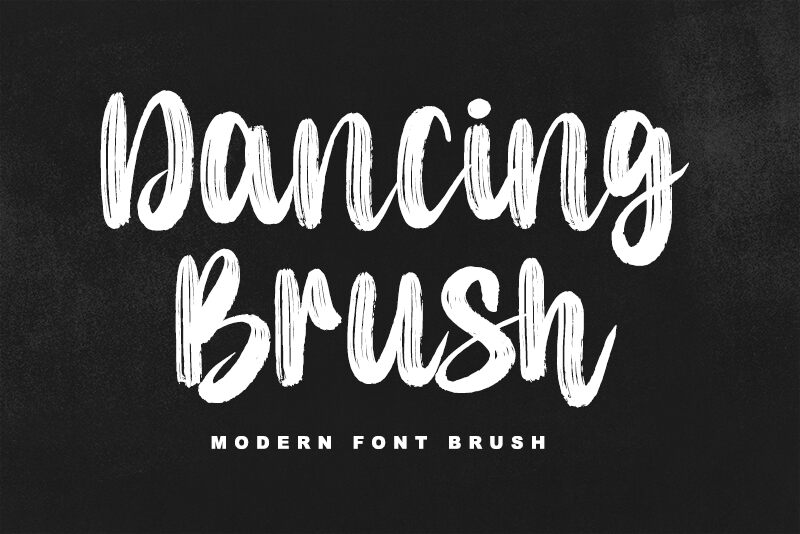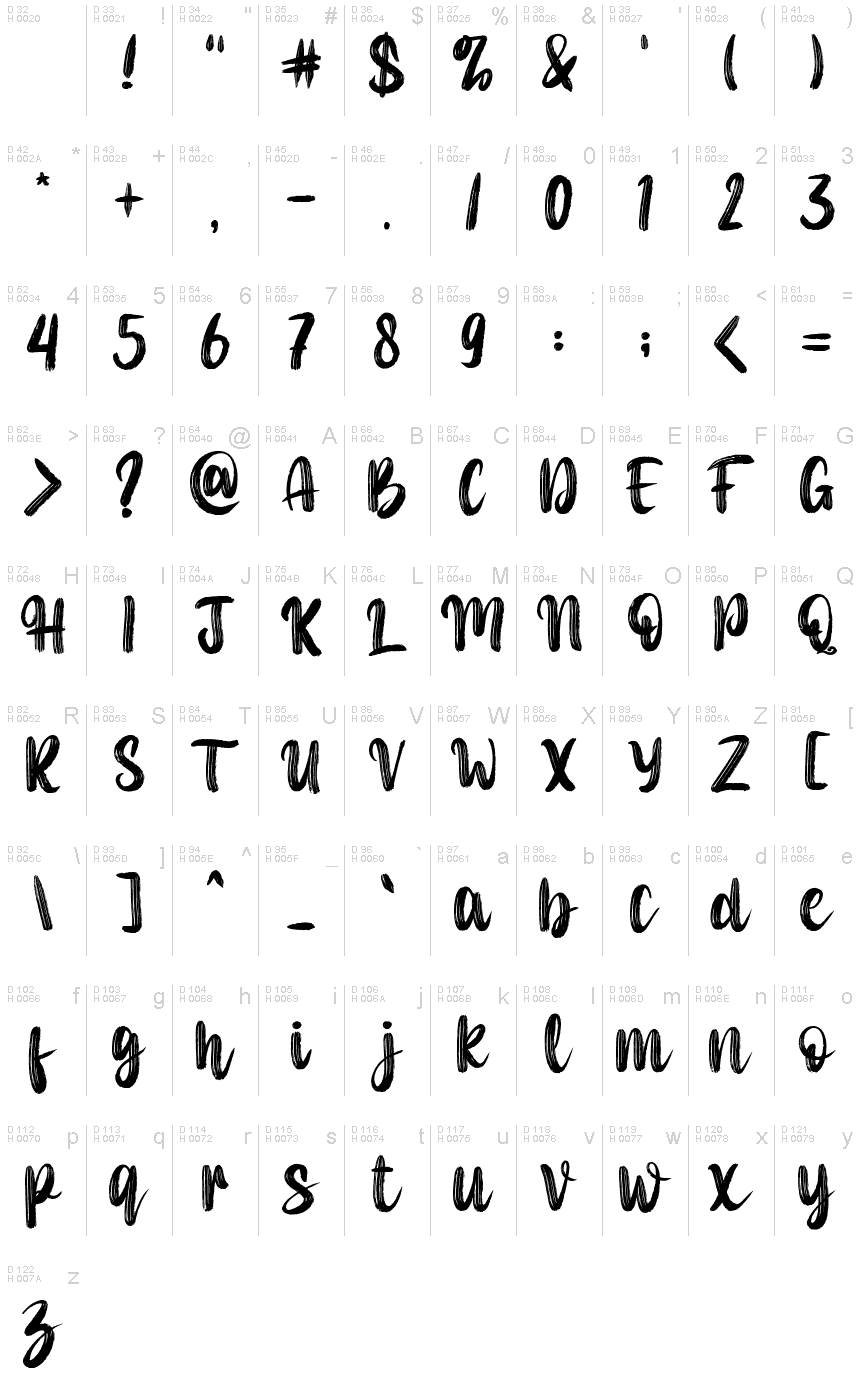
Dancing Brush, a creation of Letterara, brings an energetic flair to the brush font landscape with its bold strokes and semi-condensed width. Crafted to capture the essence of hand-painted signage and artistry, this font dances across the page with a rhythm that is both playful and emphatic. The robust weight offers a sturdy aesthetic that commands attention, while the natural flow and variation in stroke thickness evoke a sense of authenticity and personal touch.
Perfect for projects that require an injection of personality, Dancing Brush excels in contexts ranging from branding to editorial work. Its distinctive style makes it ideal for eye-catching headlines, expressive advertising campaigns, or any creative endeavor that benefits from a touch of spirited elegance. Embrace the lively character of Dancing Brush to infuse your designs with its unmistakable charm.